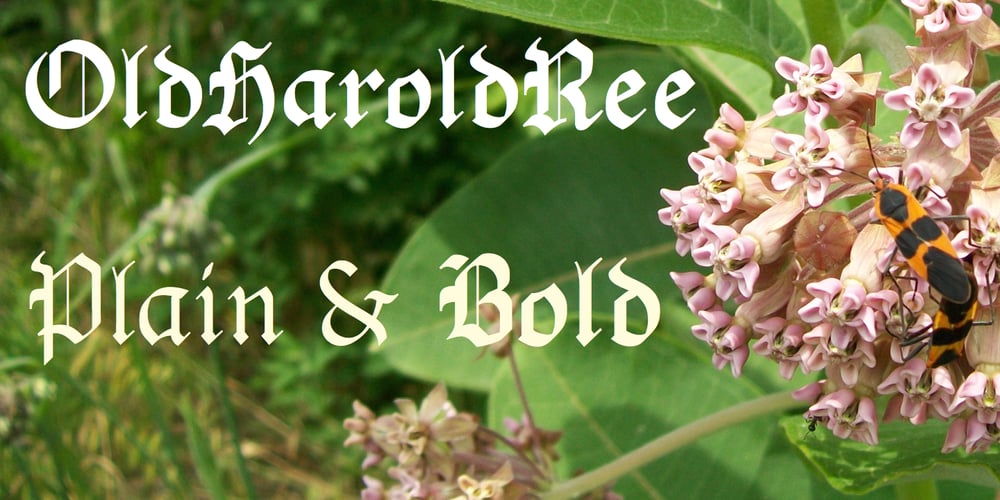
OldHaroldRee Font Family was designed by Robert Schenk and published by Ingrimayne Type. OldHaroldRee contains 2 styles and family package options. OldHaroldRee is a modification of PhederFrack, a calligraphic fraktur face. It keeps the lower case letters and inserts a completely different set of upper-case letters, which is in the “Old English” rather than the “Old German” or fraktur style. It comes in two weights, a bit unusual for an Old-English style typeface.